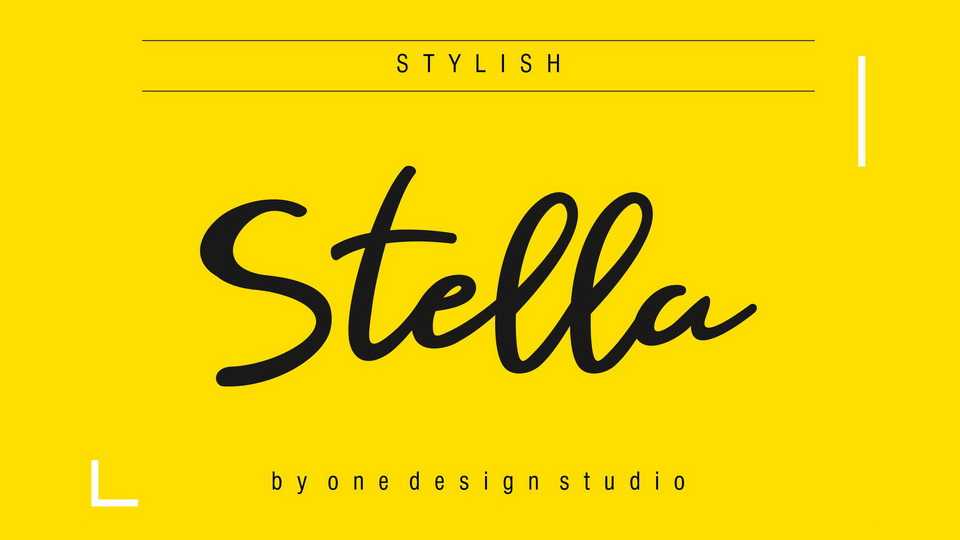
Download Stella font, a stylish and modern handwritten typeface described by an elegant touch. With its incredibly distinct and timeless style Stella is perfect to create spectacular designs.
Designer: One Desain